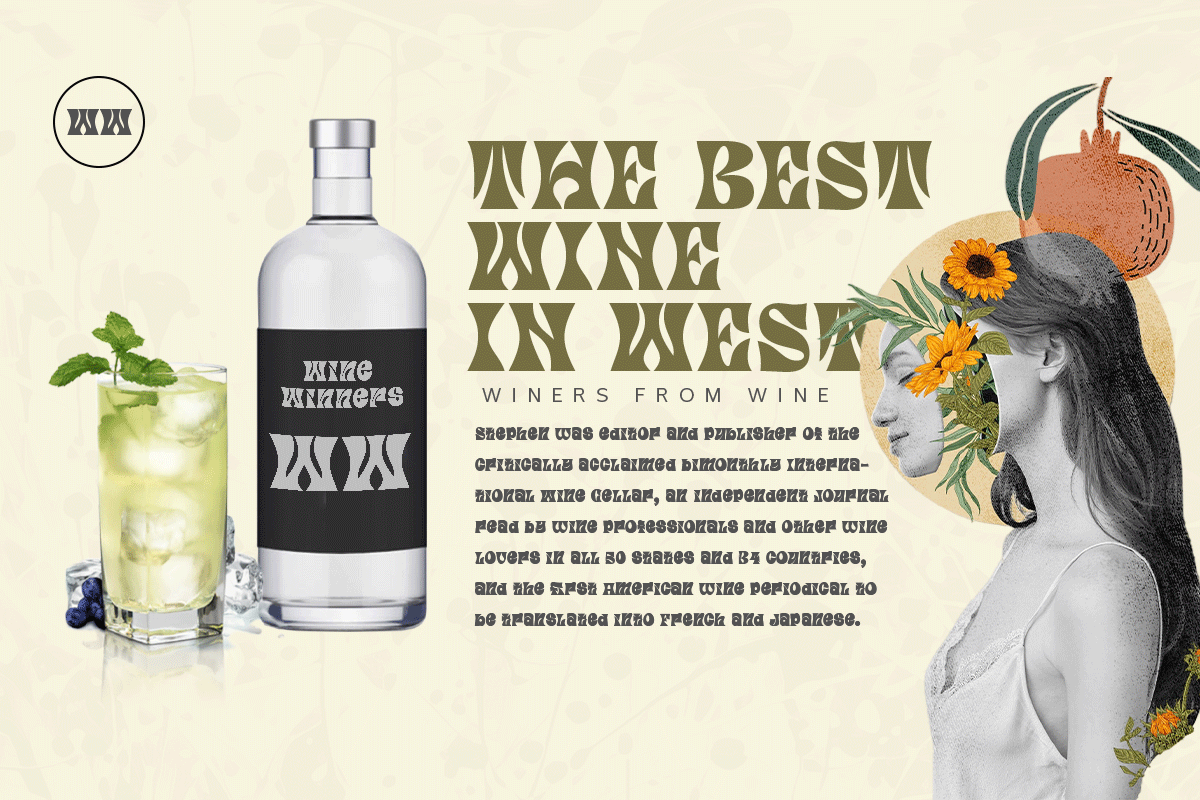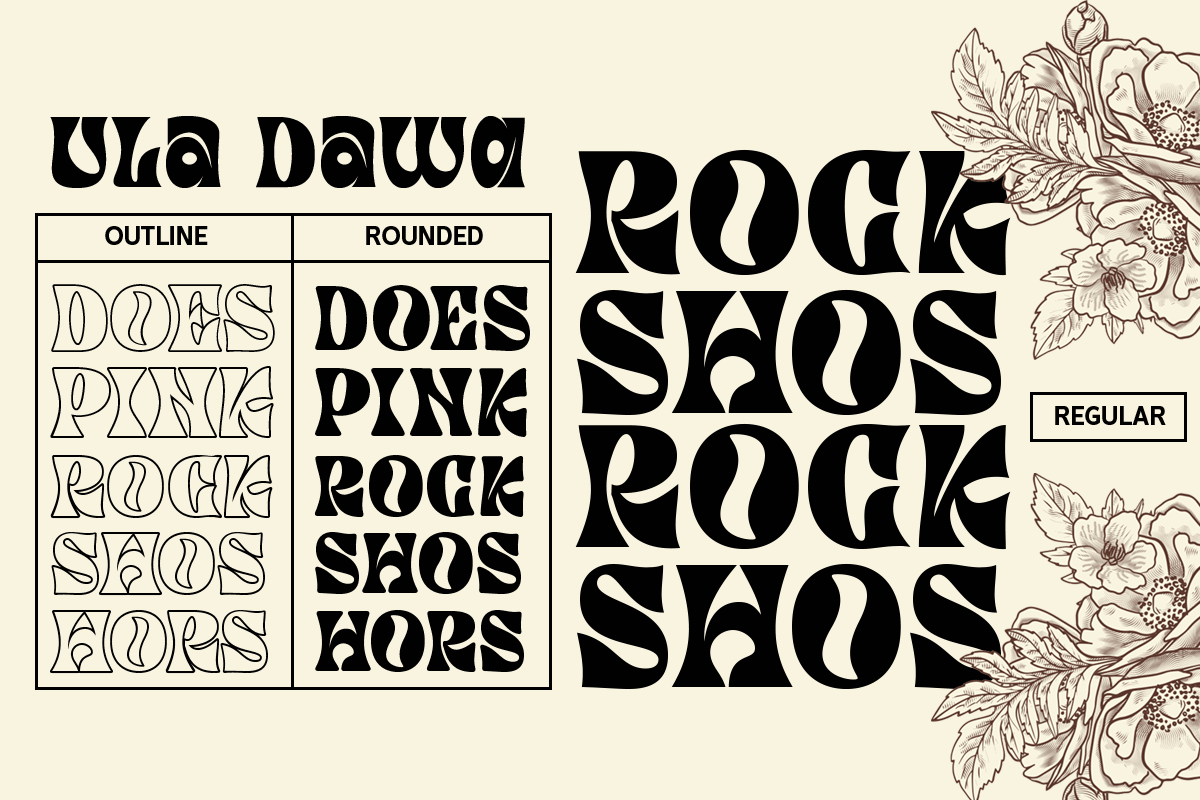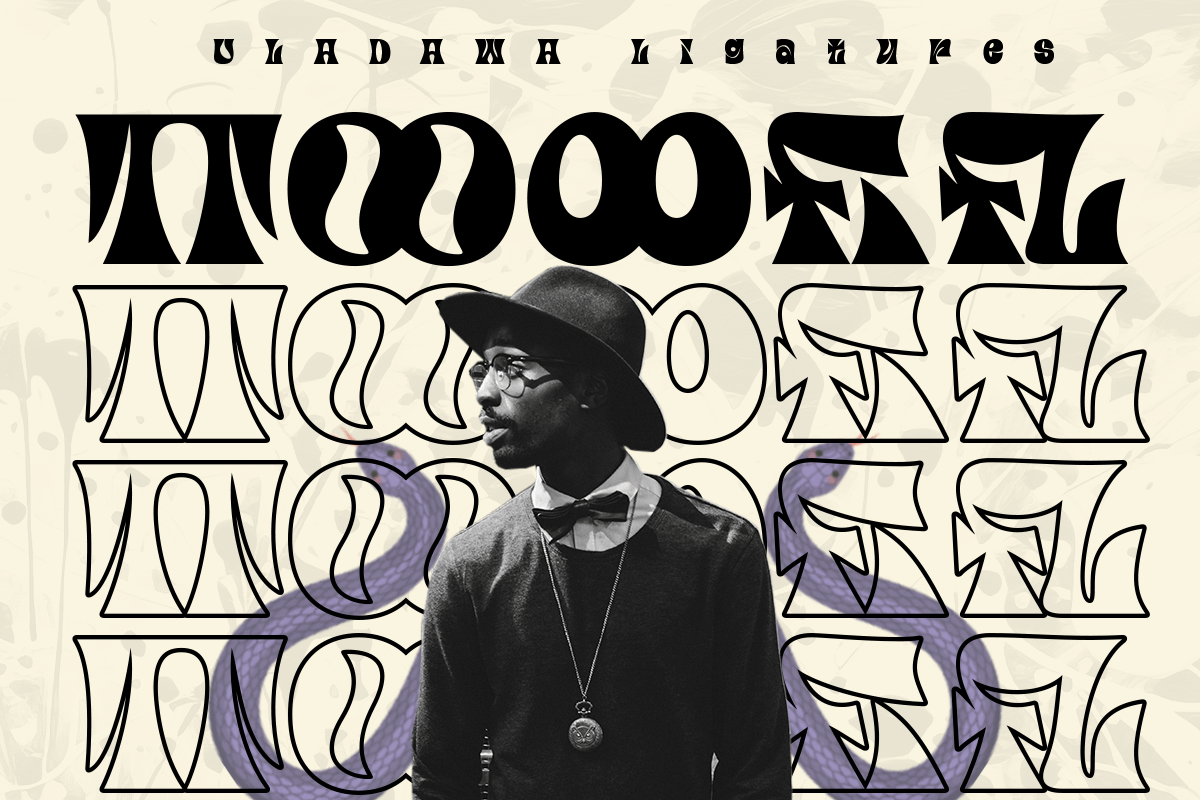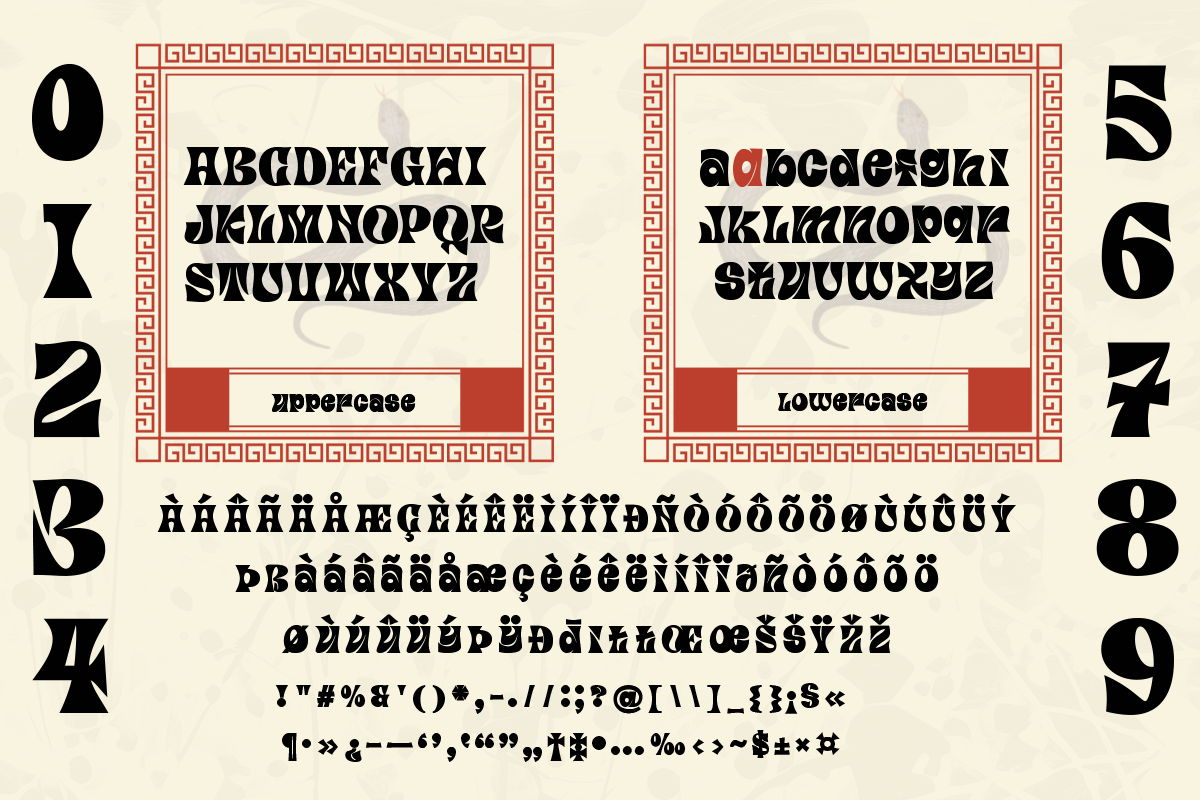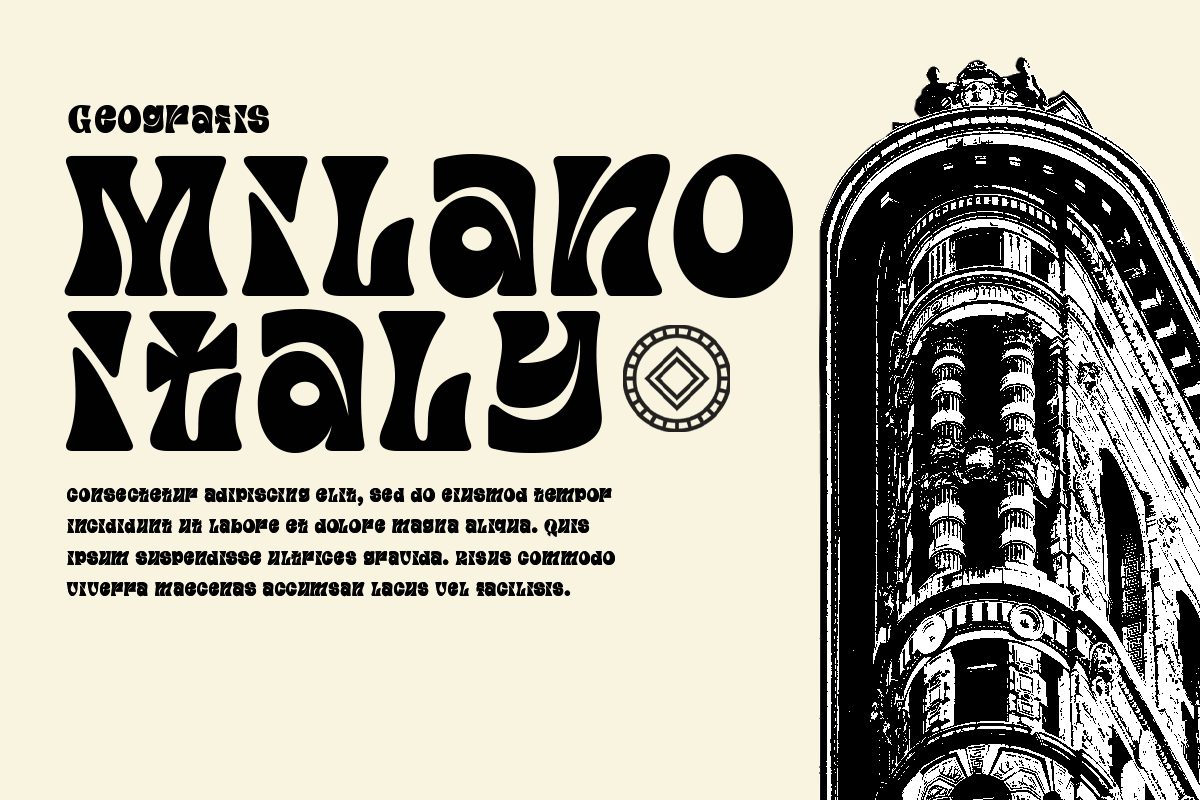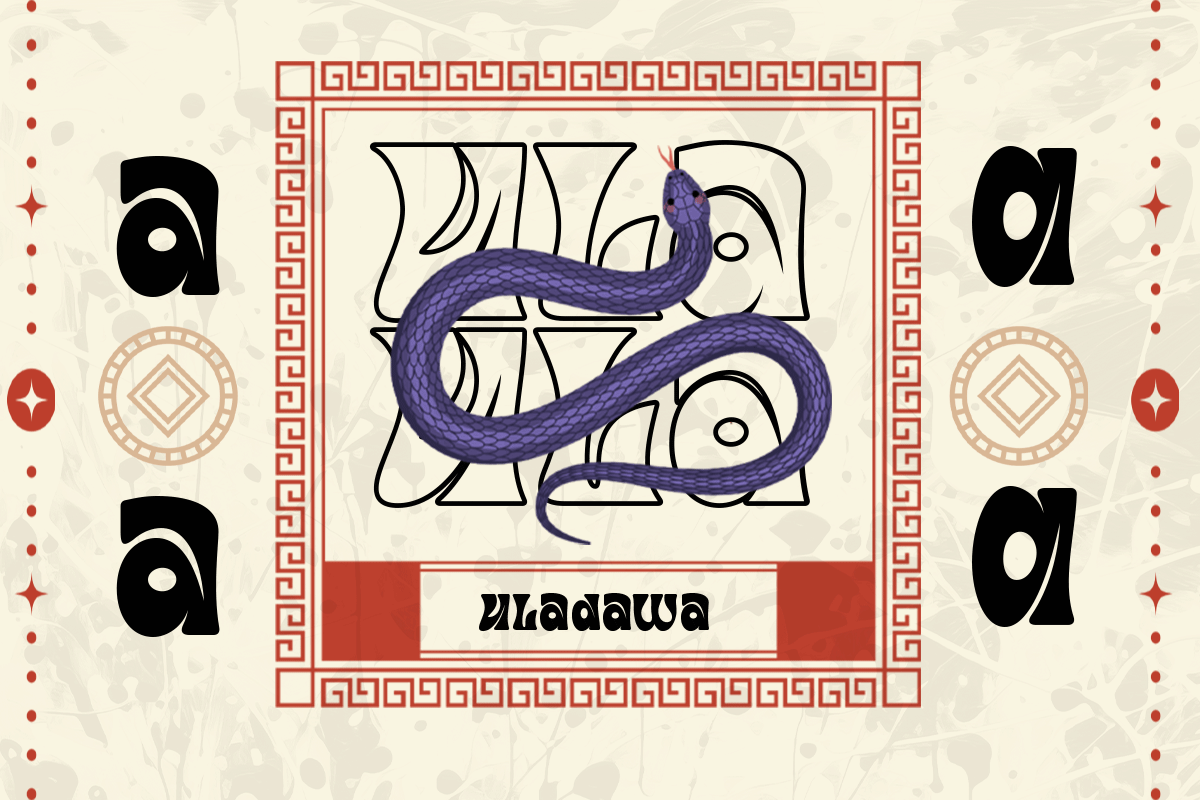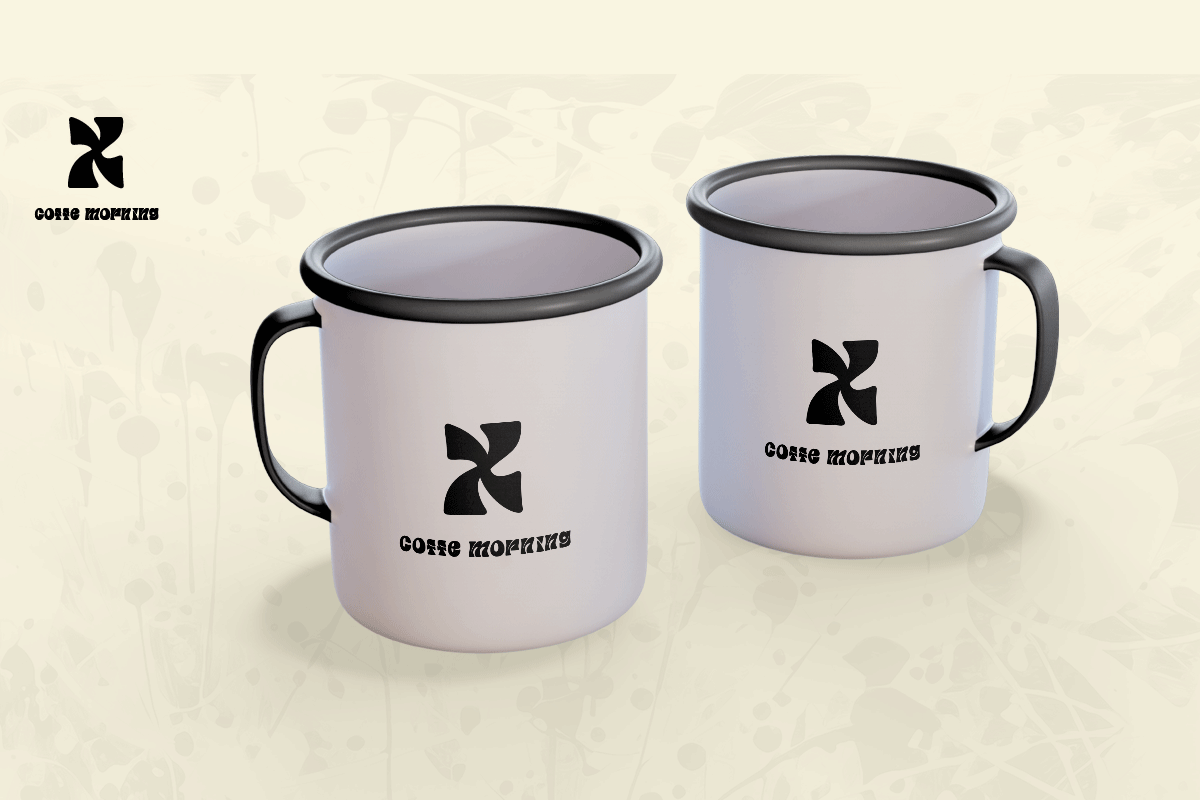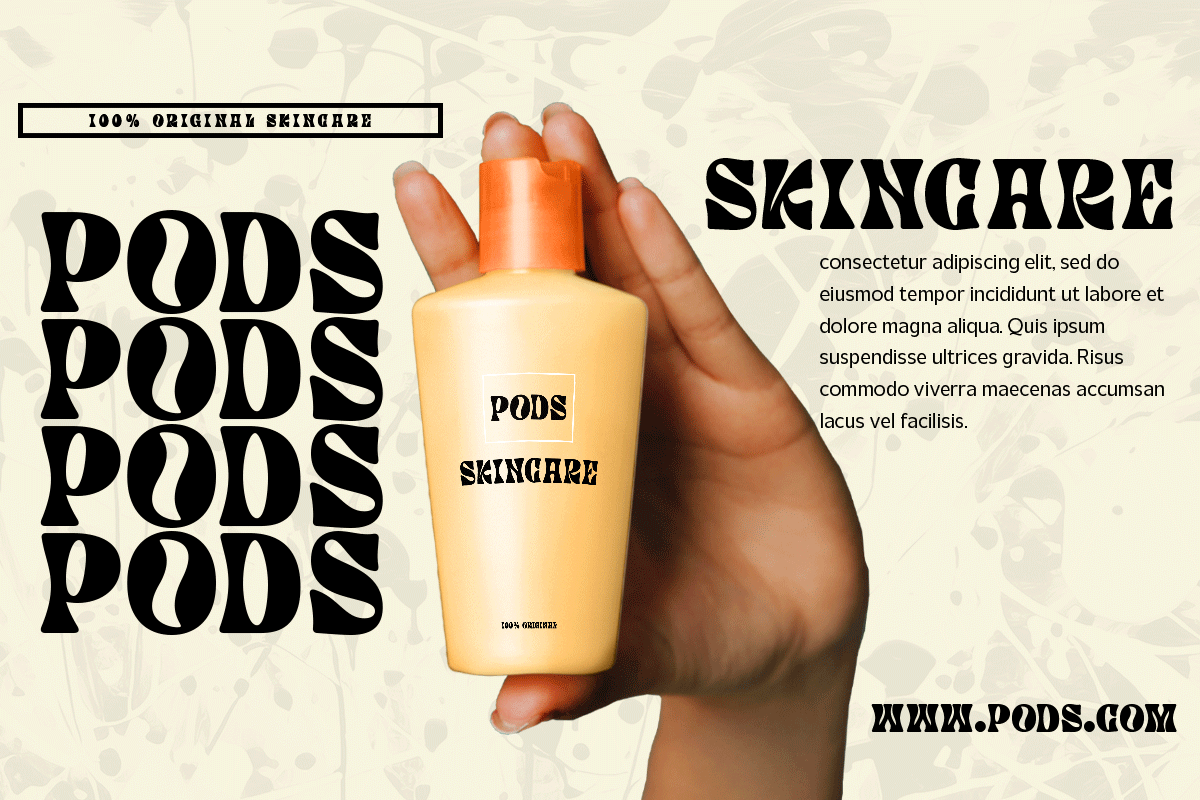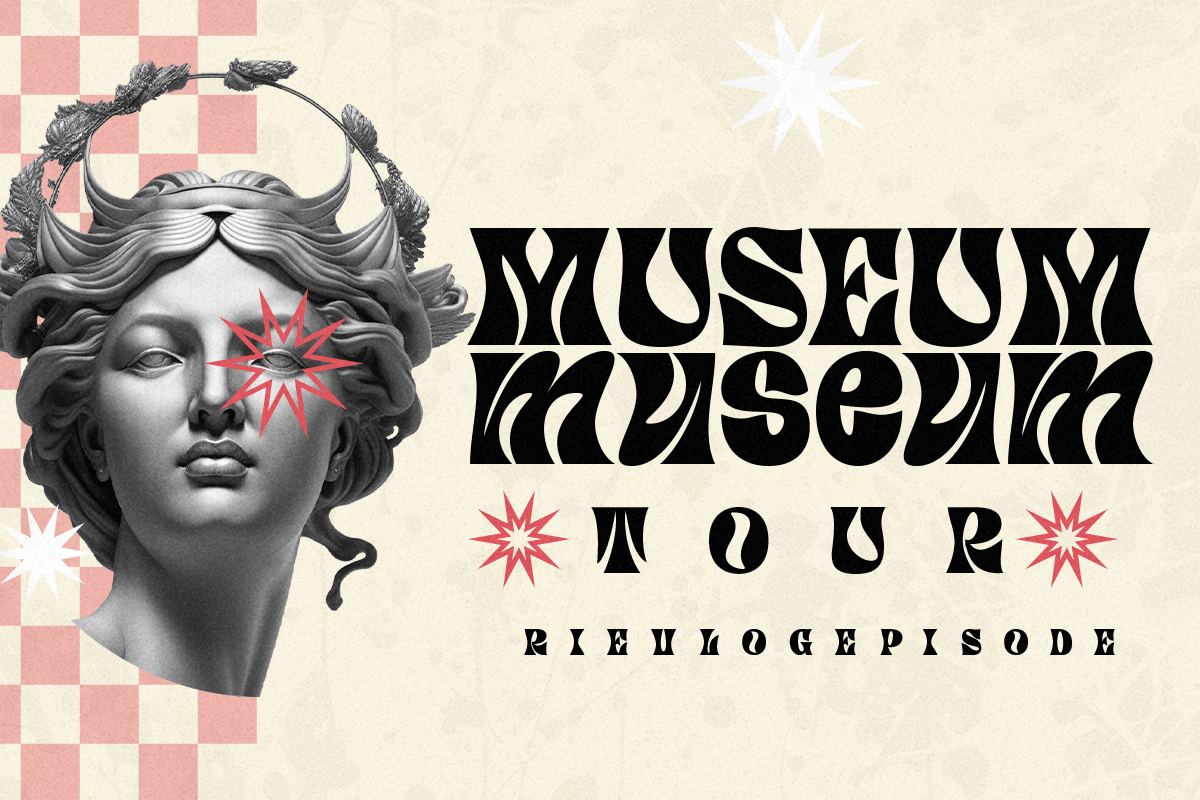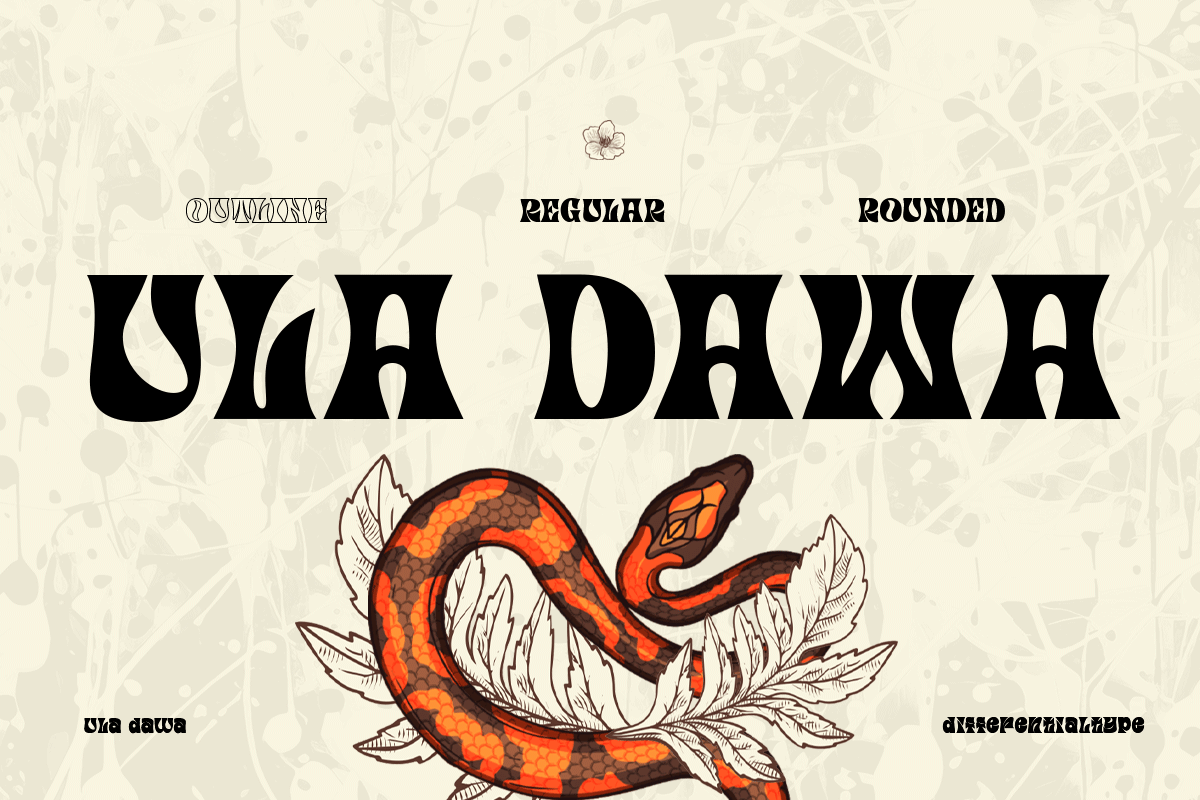
Ula Dawa - Display Font
Experience the vivacious energy of Ula Dawa, a daring and playful typeface crafted to elevate your imaginative endeavors. Embodying the retro charm of the psychedelic period, Ula Dawa weaves an exclusive enchantment into each design with its crisp lines and audacious flair. Every bend and corner has been thoughtfully honed to perfection, promising stunning visuals that exude excellence right down to the minutest detail.
Ula Dawa unveils an array of three distinct styles - regular, rounded, and outline, offering a versatile palette to enrich your artistic creations. From logo designs, branding projects, and arresting headlines to comical titles and engaging social media content, Ula Dawa effortlessly breathes life into every creative endeavor, captivating attention and lending a unique distinctiveness.